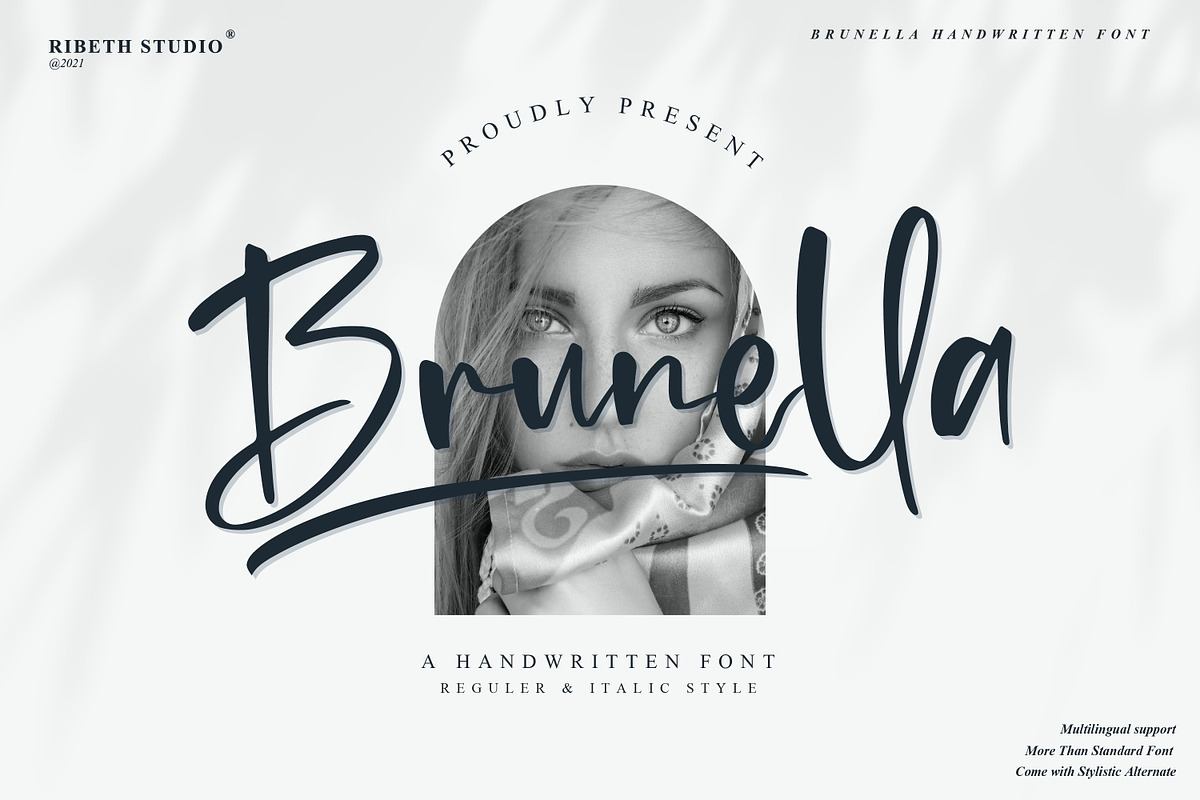
Brunella - Handwritten Font Free Download
The Brunella - Handwritten Font Free Download is a charming and elegant handwritten typeface that adds a personal, artistic touch to your designs. Perfect for creating custom logos, invitations, greeting cards, and social media graphics, this font brings a warm and organic feel to any project. Please note, for commercial use, a license must be purchased. You can download it for free for testing purposes.
With its flowing strokes and graceful curves, the Brunella - Handwritten Font Free Download is ideal for projects that require a creative and personal flair. Whether you're working on wedding invitations, branding, or custom designs, this font offers a beautiful, hand-drawn aesthetic that will make your work stand out.